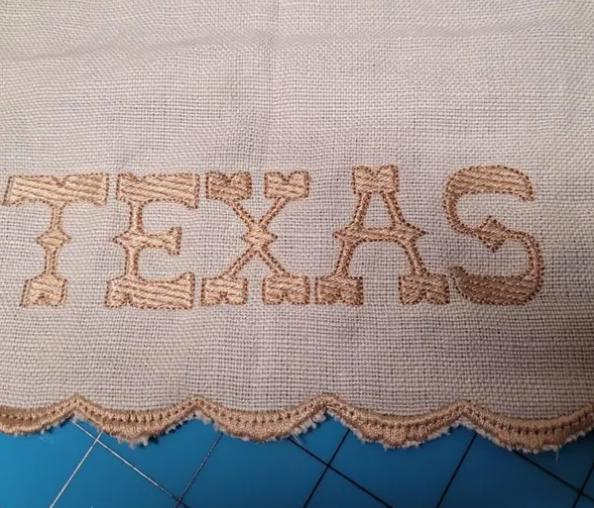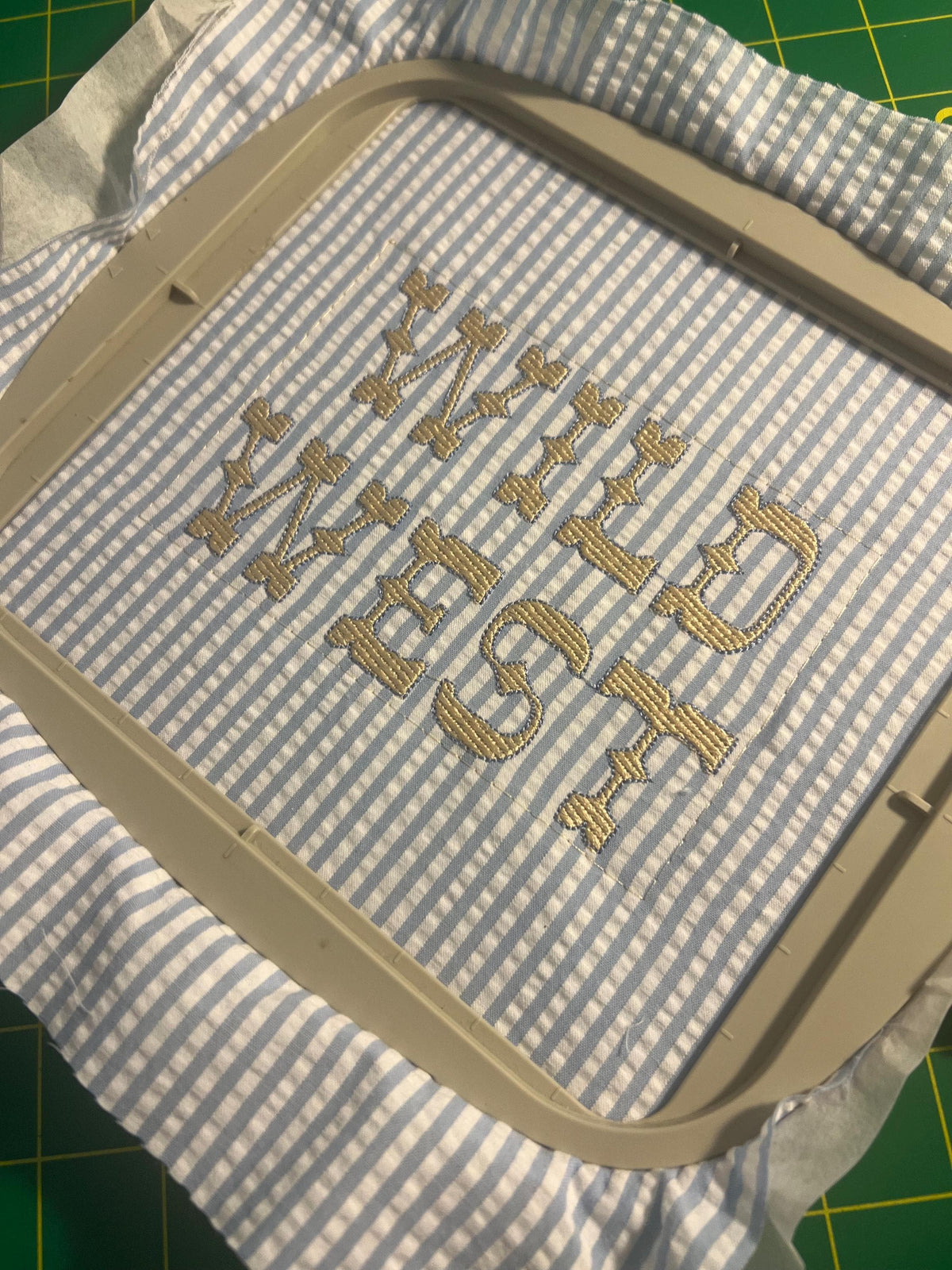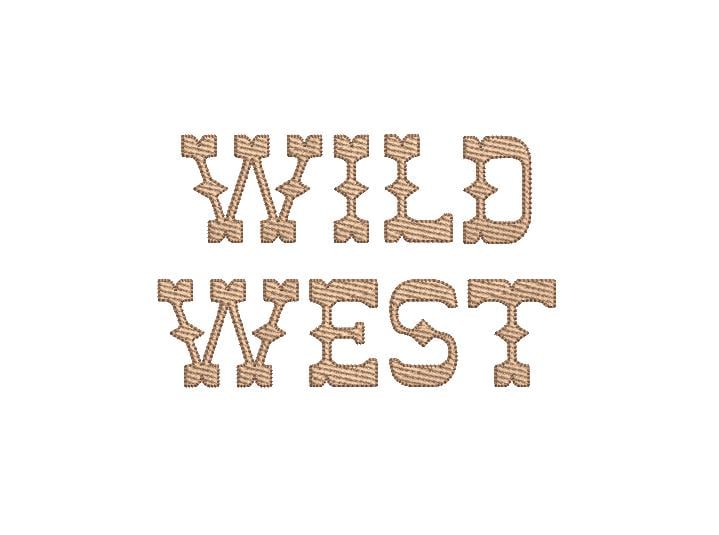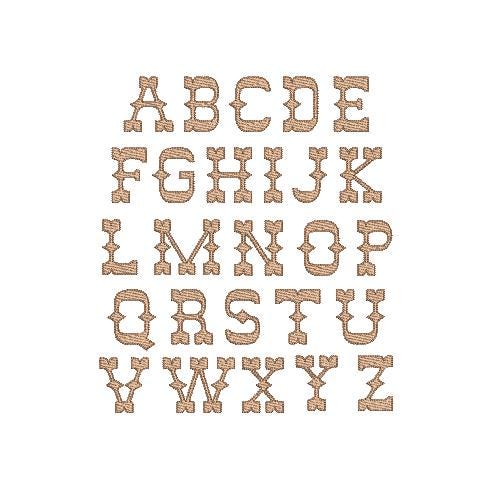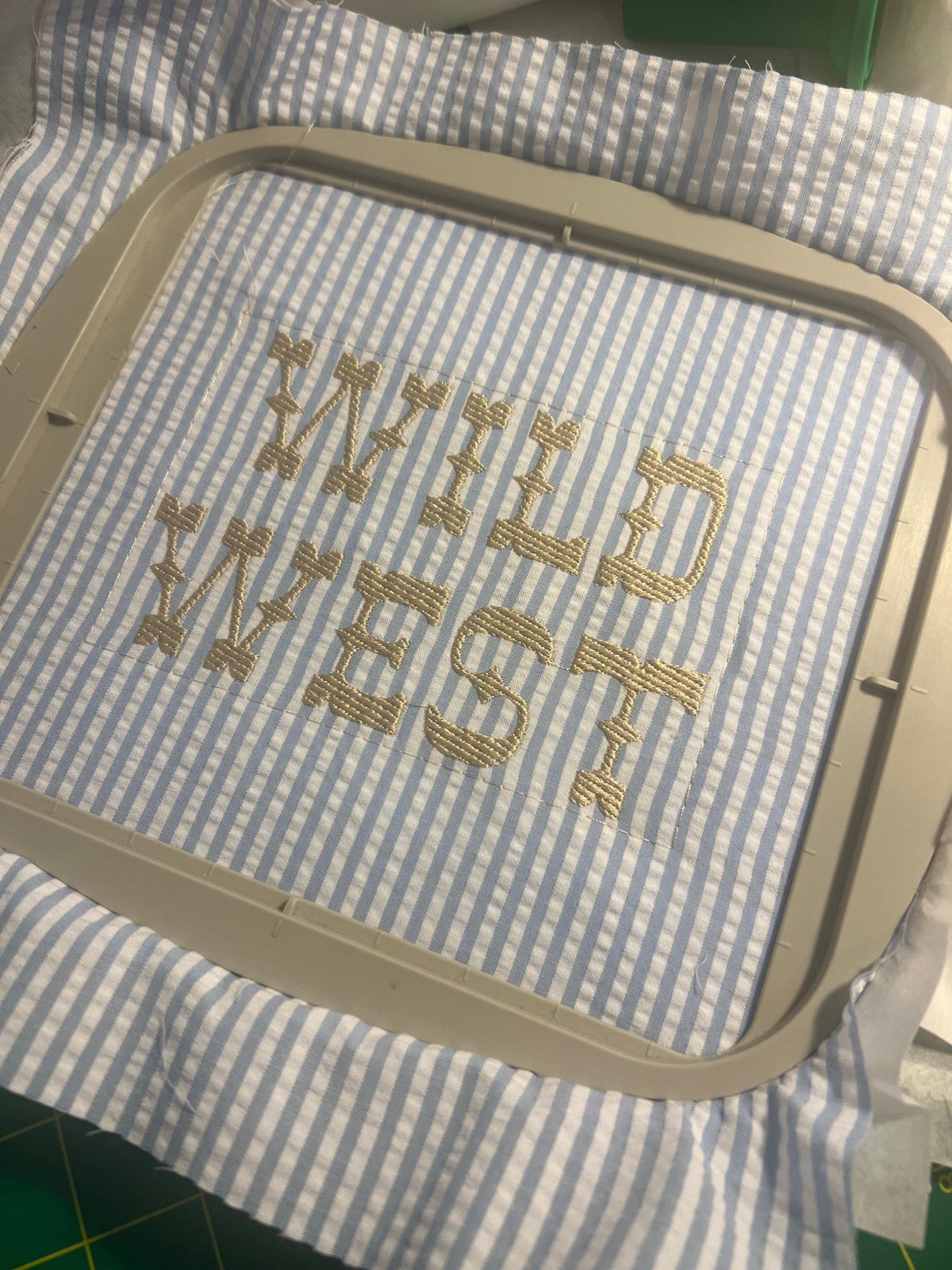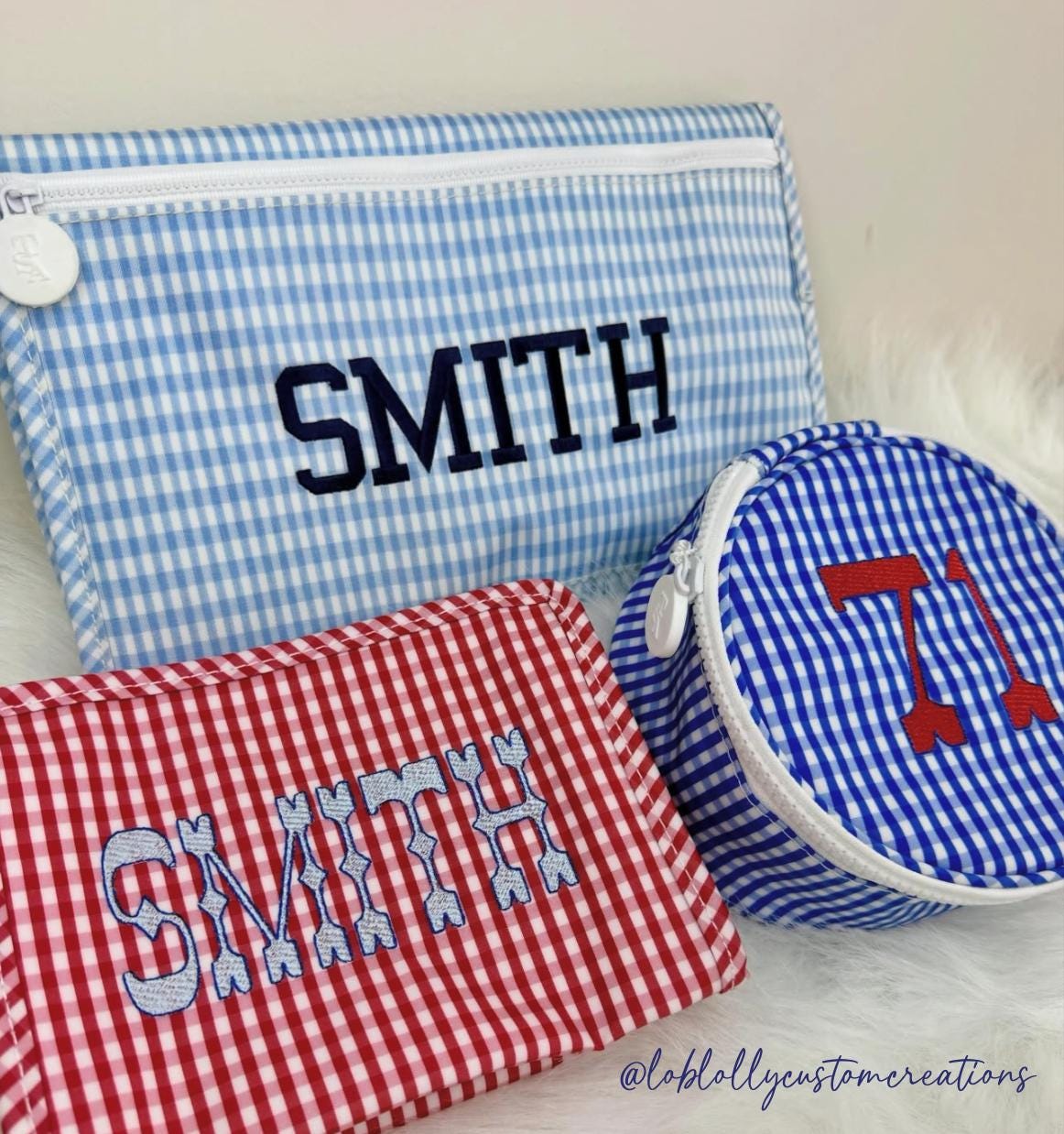
Wild West Western Font Rope Fill Two Color Outlined All Caps Machine Embroidery Design 5 Sizes BX PES DST+++ Incl Digital Instant Download
This is a DIGITAL instant download only of an all capital letter two color Western style font with a fun rope fill stitch motif and bean stitch outline machine embroidery design. Use with or without the outline. Smaller sizes intentionally have a rougher authentic western outline. Offered in 5 sizes, 8 machine formats and BX mapped files. Perfect for every little cowboy or cowgirl in your life!